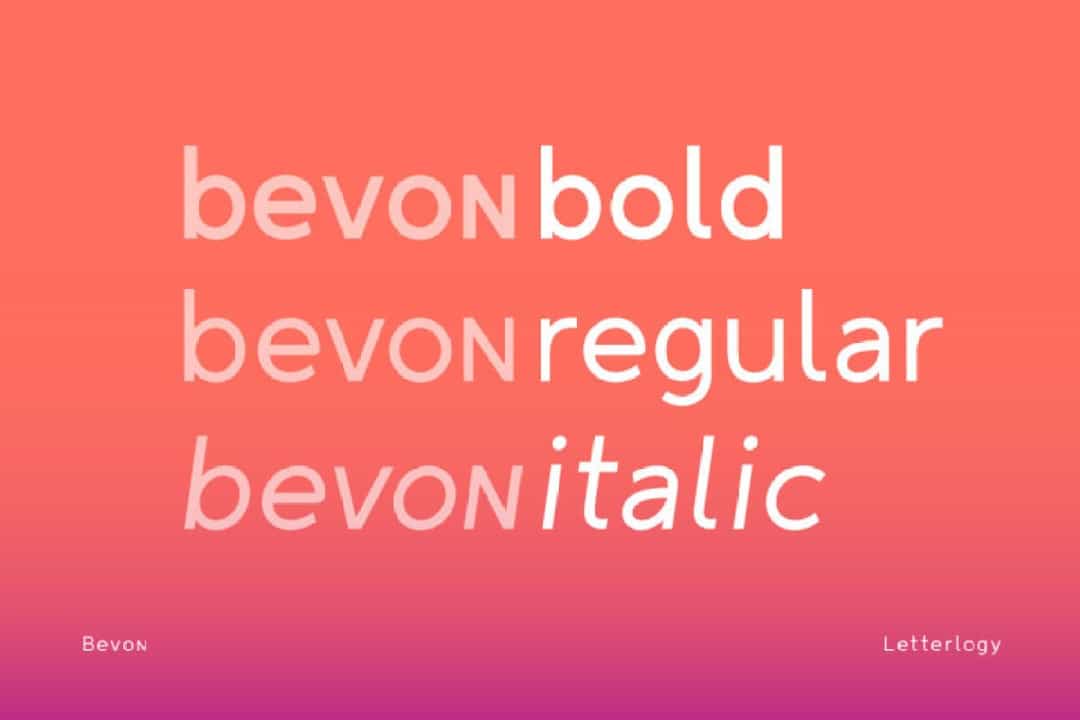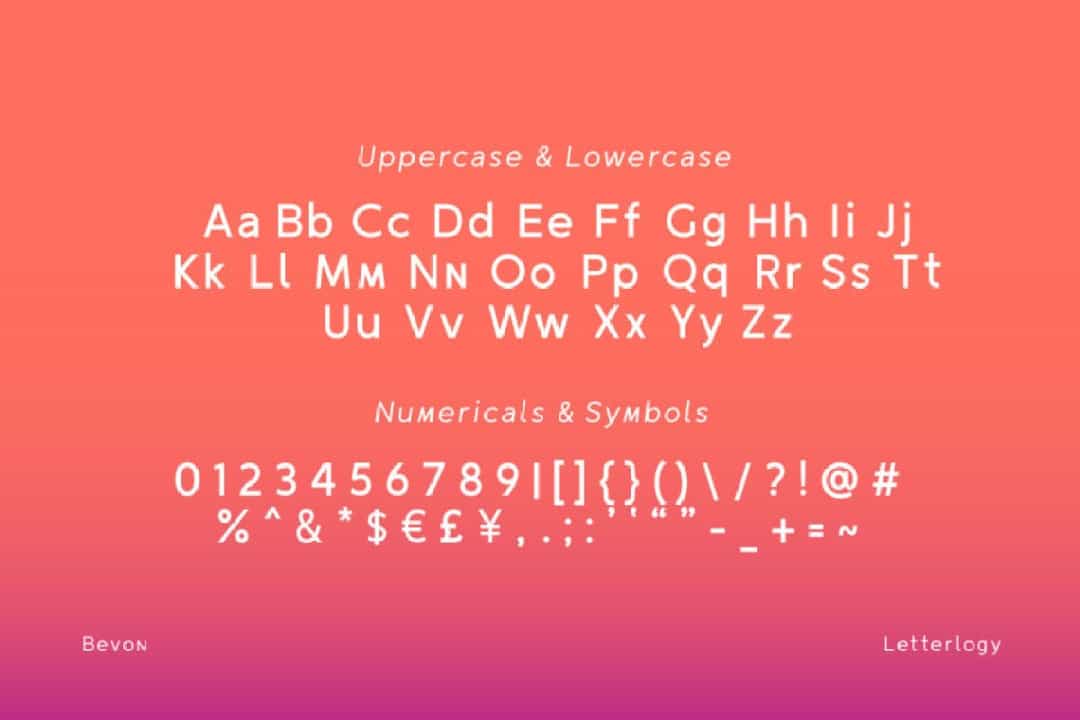
Bevon Font is an elegant sans serif typeface which easily adapts to a range of projects and ideas for creative inspiration. Give Bevon Font a try now to see your projects truly stand out!